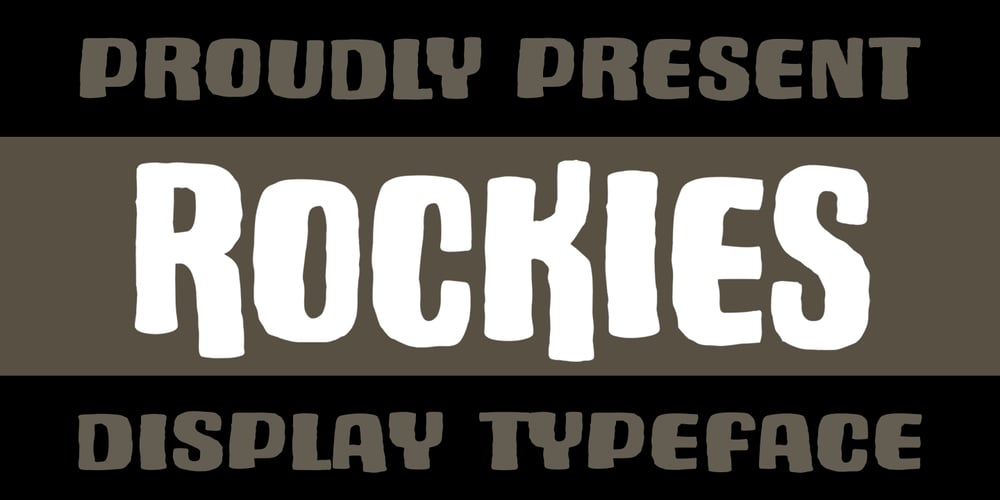
Rockies Font Family was designed by Rangga Subekti and published by Subectype. Rockies contains 2 styles and family package options. Rockies is a Rough display font. It comes in a Regular and an italic version, so take your pick! This enchanting font is quirkiness and authenticity and will turn any creative idea into a true standout.Multilingual support.